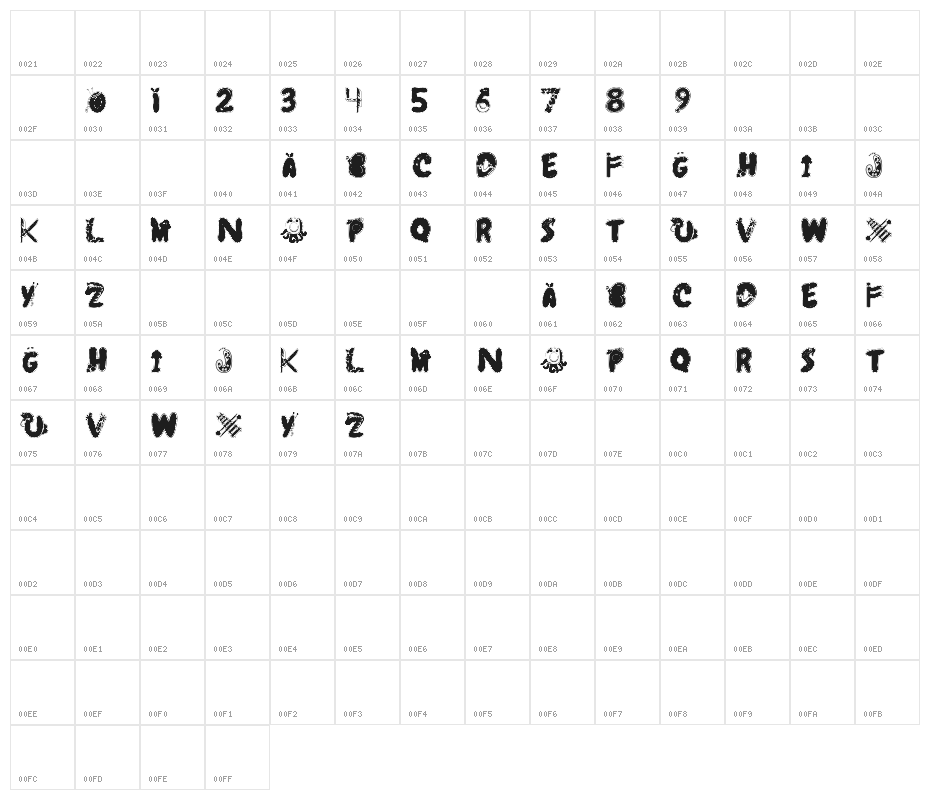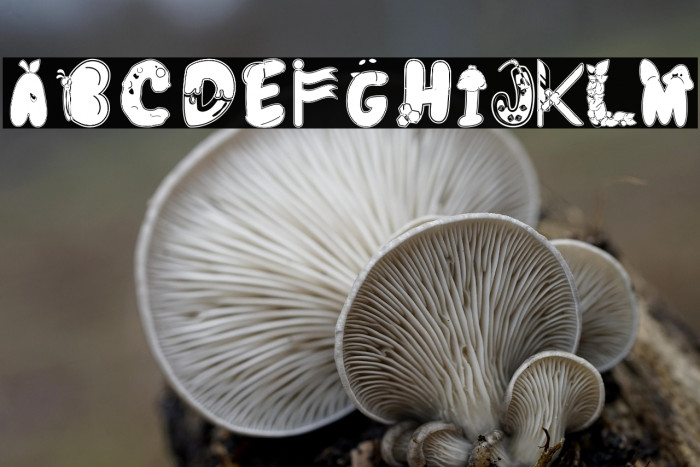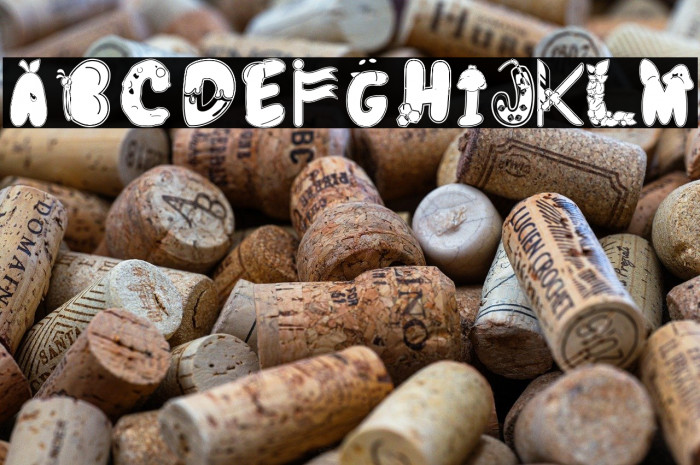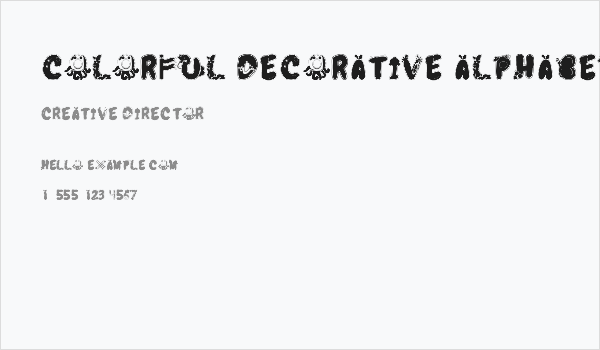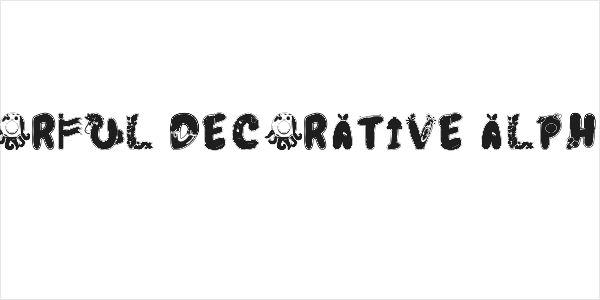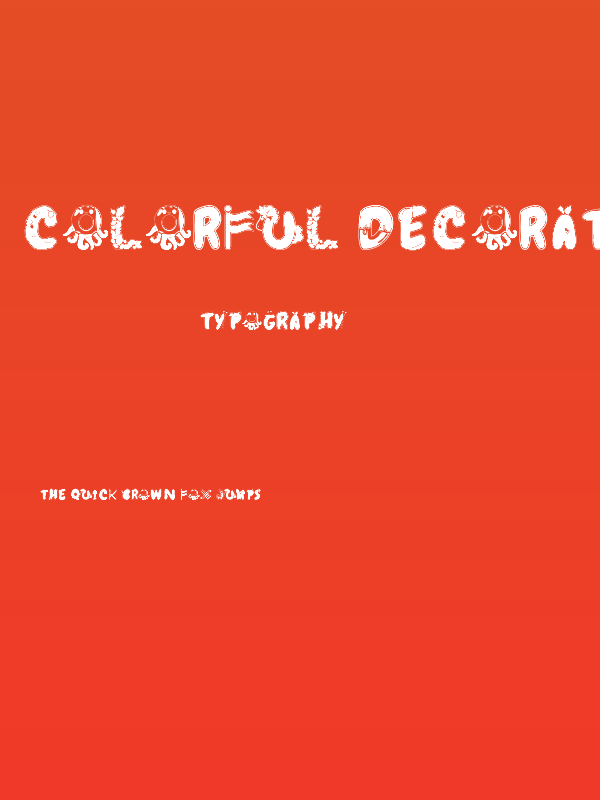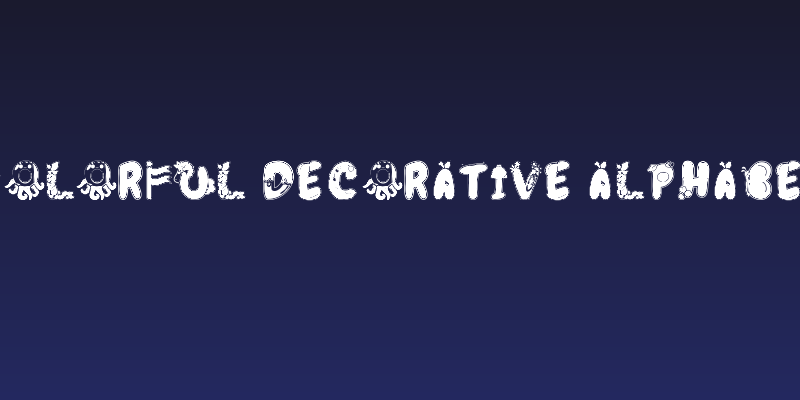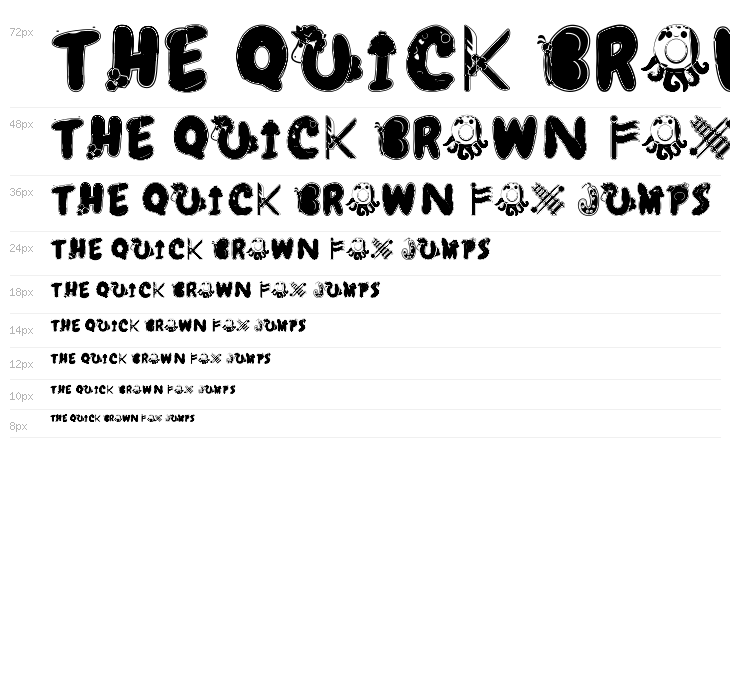
Colorful Decorative Alphabet Font
Colorful Decorative Alphabet Description
This playful and whimsical font features a variety of decorative elements integrated into each character, creating a lively and engaging visual experience. Each letter and number is uniquely designed with elements such as dots, stripes, and playful motifs, making it ideal for projects that require a fun and creative touch. The characters are bold and eye-catching, with a mix of thick and thin strokes that add to their dynamic appearance. The font's style is reminiscent of children's illustrations or themed party invitations, where a sense of joy and imagination is paramount. Its decorative nature makes it less suitable for body text but perfect for headlines or titles that need to stand out.
| Proposed Projects | Ideal for children's books, party invitations, playful branding, and creative posters. |